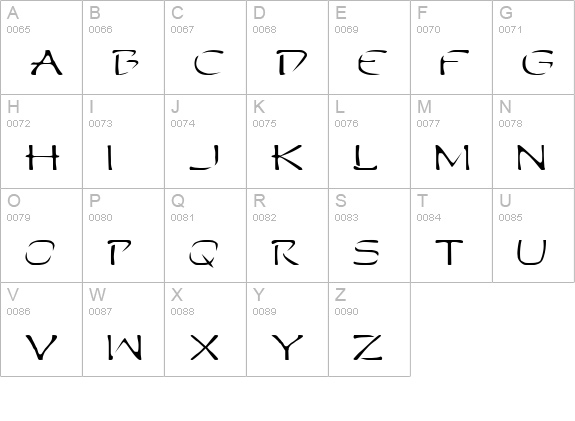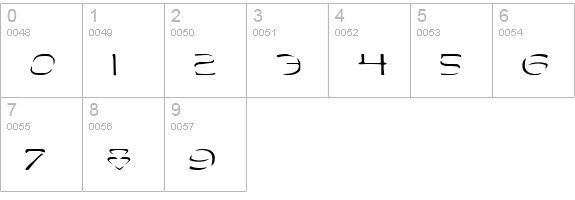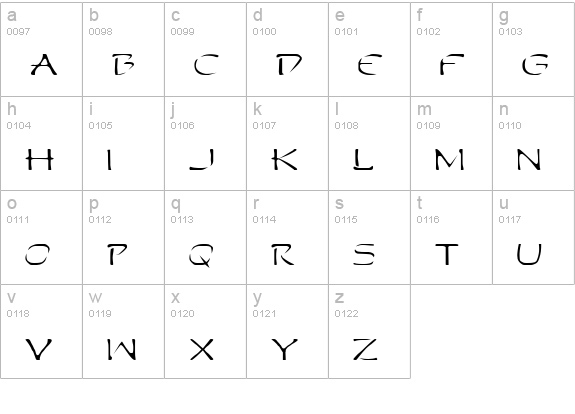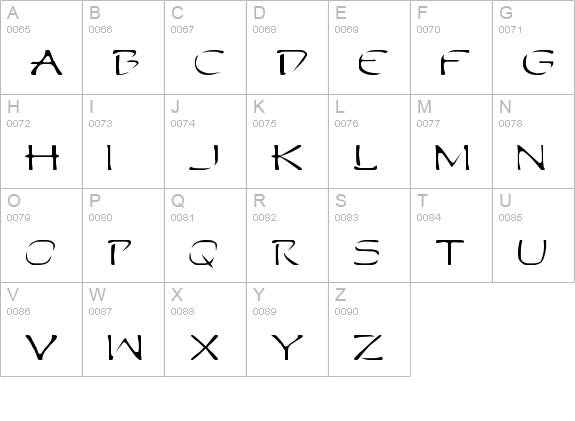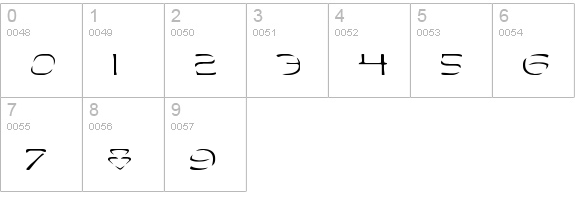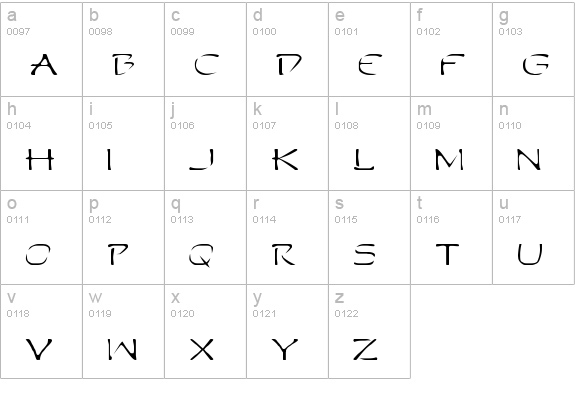
Perdition Expanded is a distinctive, extended-width variant in the Perdition typeface family \xE2\x80\x94 well suited to design and typography projects.
Perdition Expanded font is a masterpiece that will captivate and inspire with its bold and powerful presence. Its sleek and stylish letterforms effortlessly command attention, making it the perfect choice for any project that requires a touch of sophistication and modernity. This expanded version of Perdition takes the original font's distinctive letter shapes and stretches them to new heights, creating a unique and eye-catching display. The wider design adds an extra level of impact, making Perdition Expanded ideal for headlines, logos, and branding materials that demand to be noticed. But what truly sets Perdition Expanded font apart is its seamless blend of elegance and edge. The sharp, angular details of each letter bring an edgy and contemporary feel, while the smooth curves and balanced proportions add a touch of refined elegance. This combination creates a truly versatile font that can be used in a variety of design contexts, from fashion and beauty to technology and corporate branding. And the best part? Perdition Expanded font is available for free download at FontsMarket.com. Yes, you read that right - this exceptional font can be yours without spending a dime. FontsMarket.com, a trusted source for high-quality fonts, offers Perdition Expanded as part of their extensive collection of free fonts, giving you the opportunity to enhance your designs without breaking the bank. So why wait? Elevate your design projects to new heights with Perdition Expanded font. Download it today, and let your creativity soar.